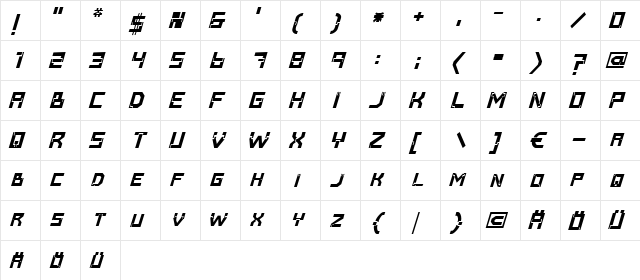
Baumarkt BoldItalic
Design Context for Baumarkt Typeface
Baumarkt is a composed and adaptable typeface that performs quietly and consistently across a wide range of design contexts. Its italic angle brings a sense of urgency and motion to the letterforms. Its bold stroke weight gives it real presence on the page.
Pro Tip: Try Baumarkt for annotation and caption copy alongside an upright companion — the contrast in angle creates a dynamic but ordered typographic system.